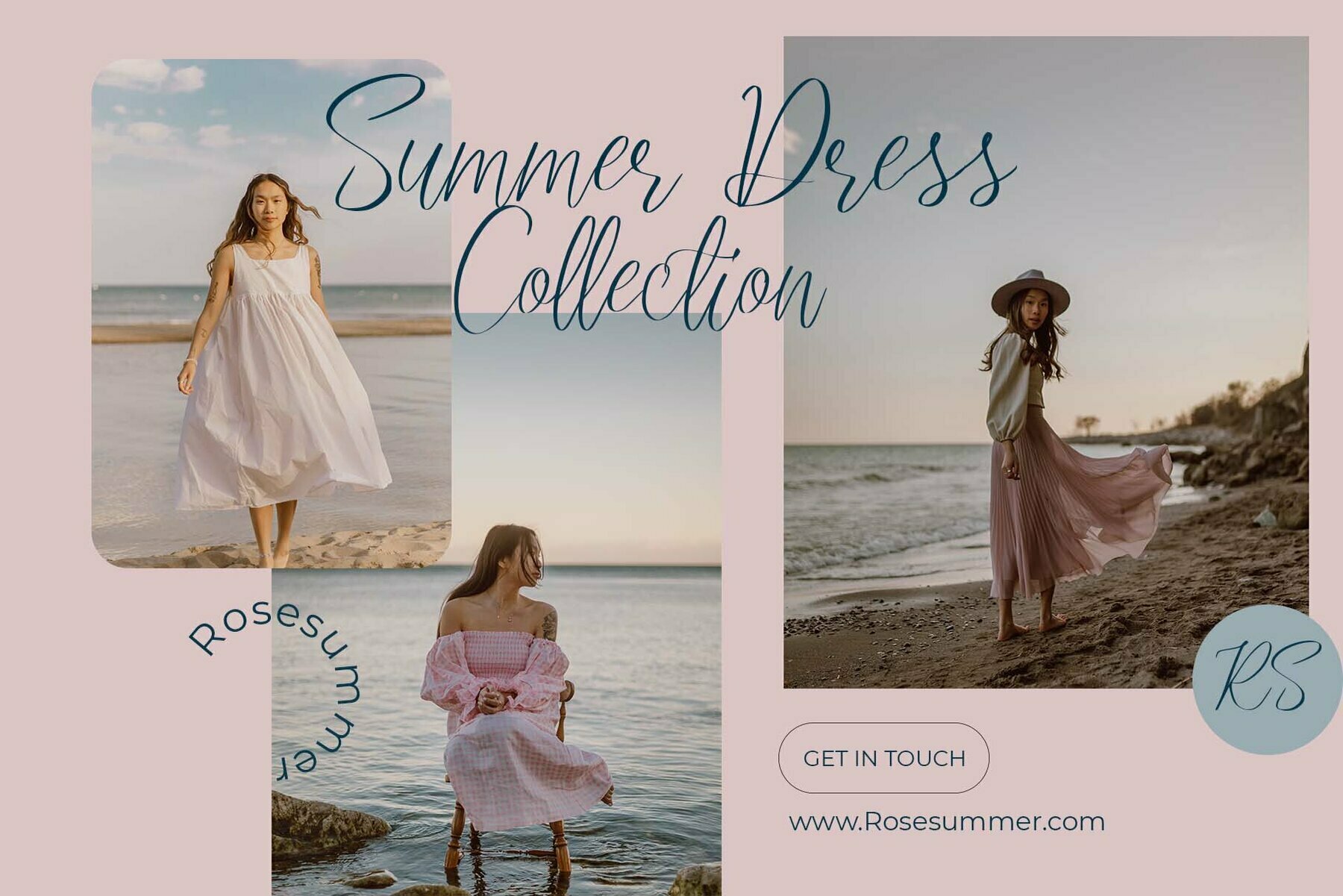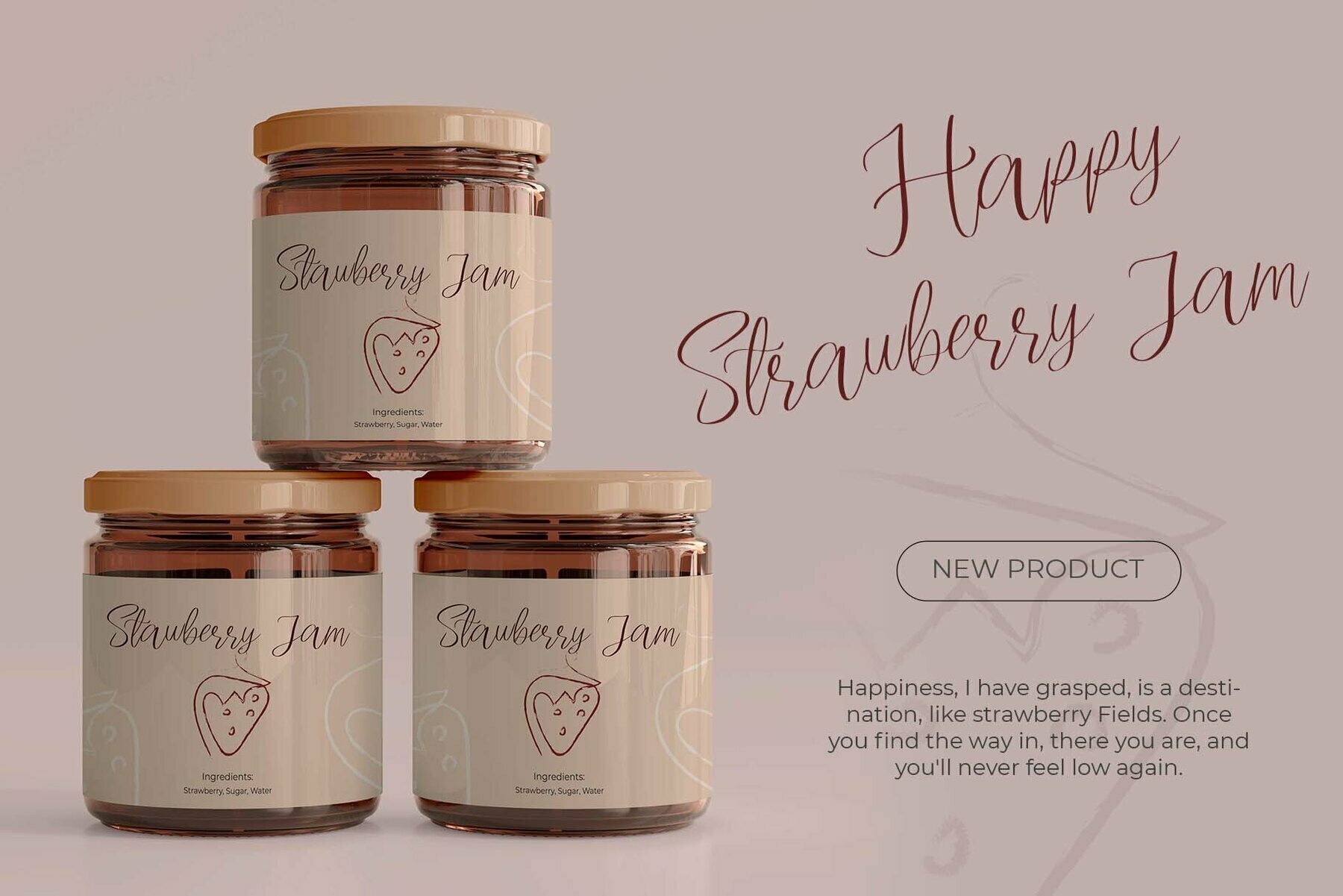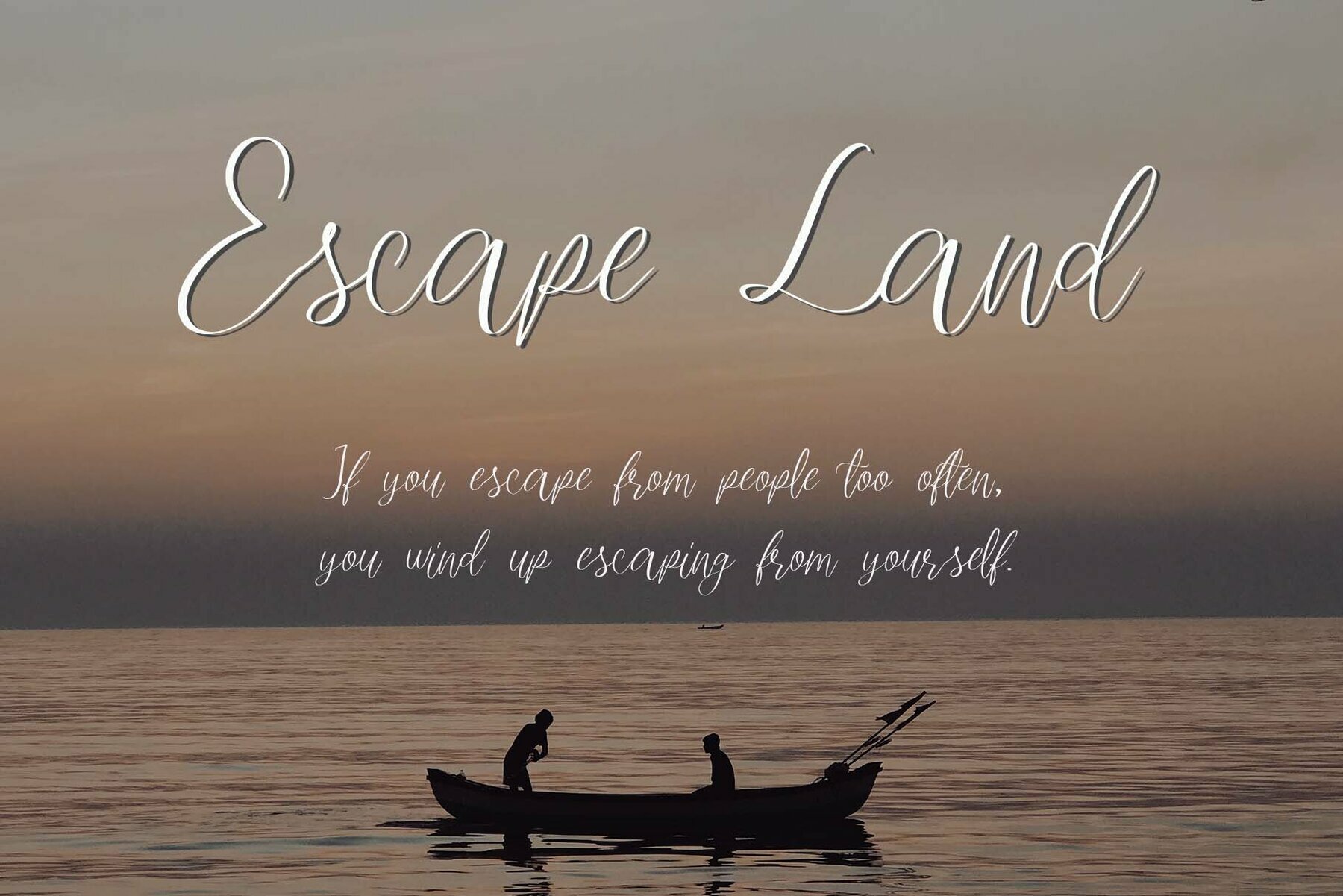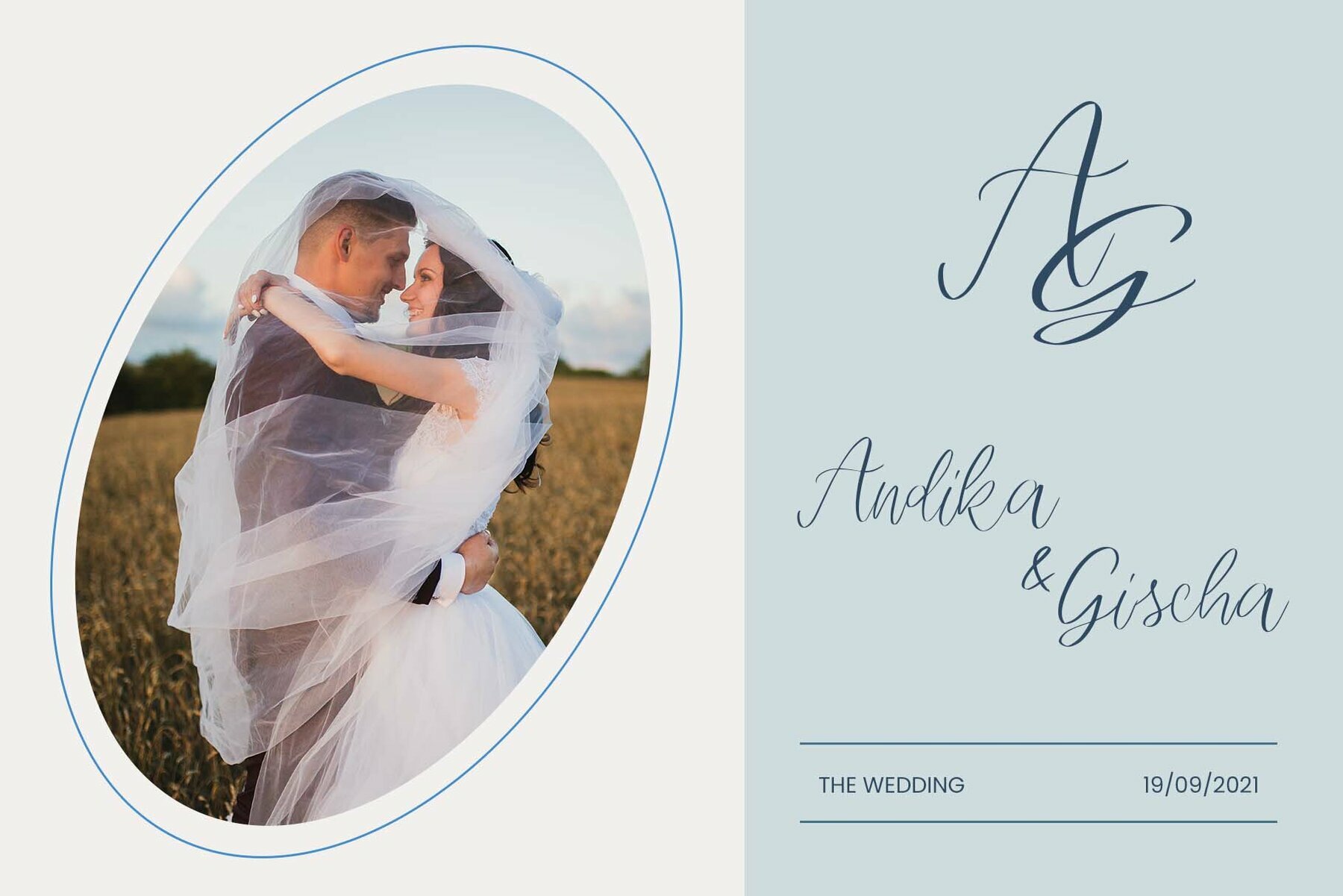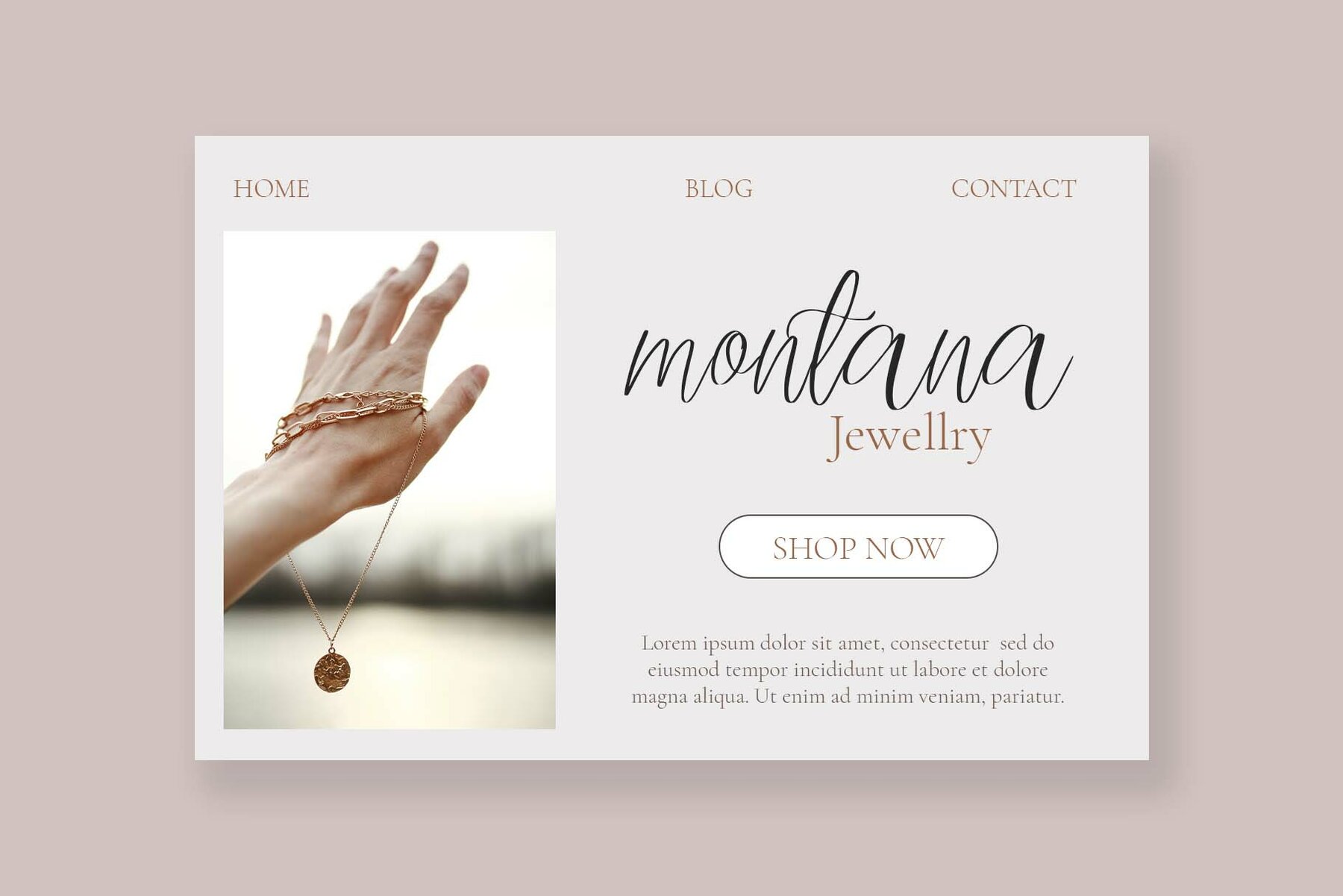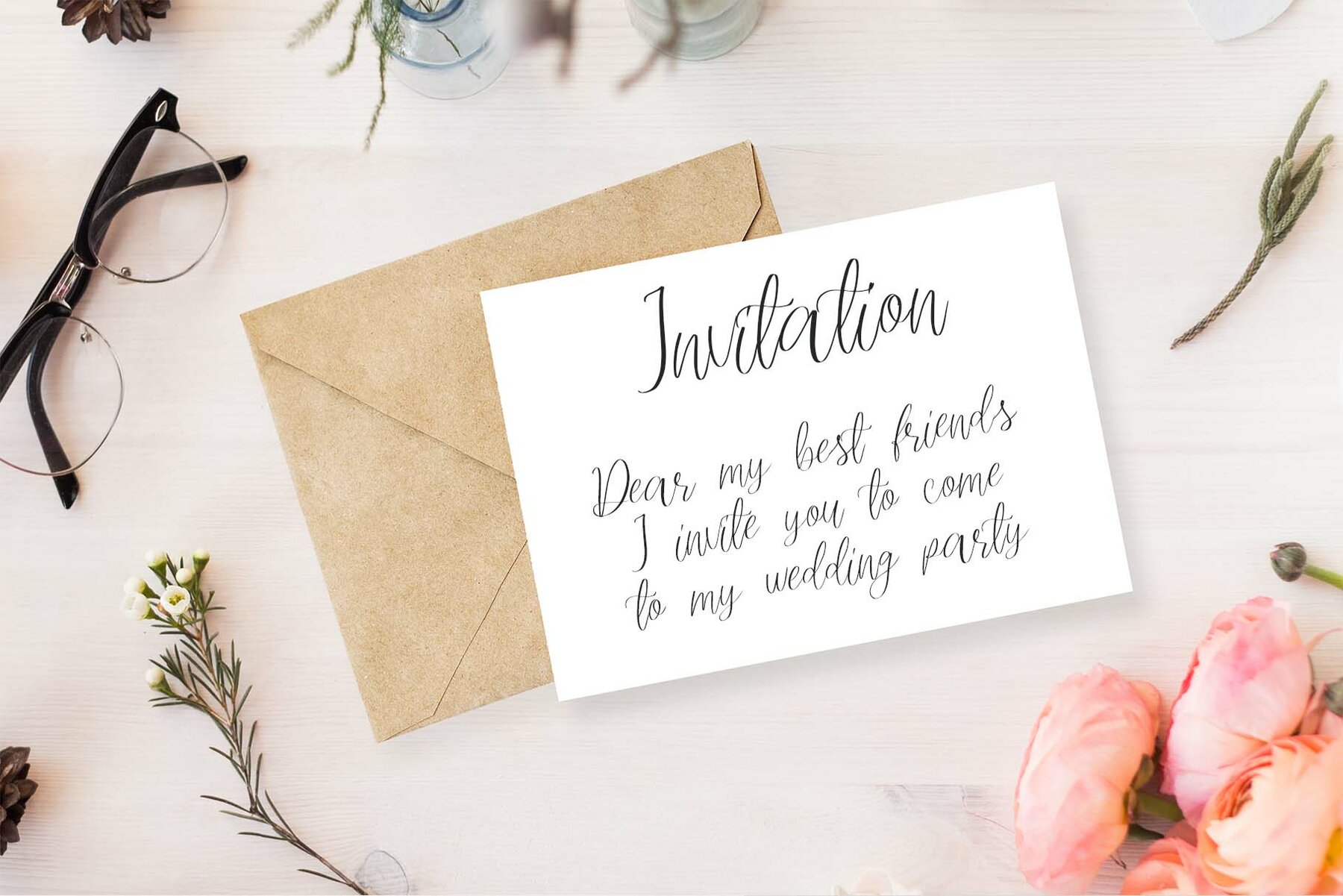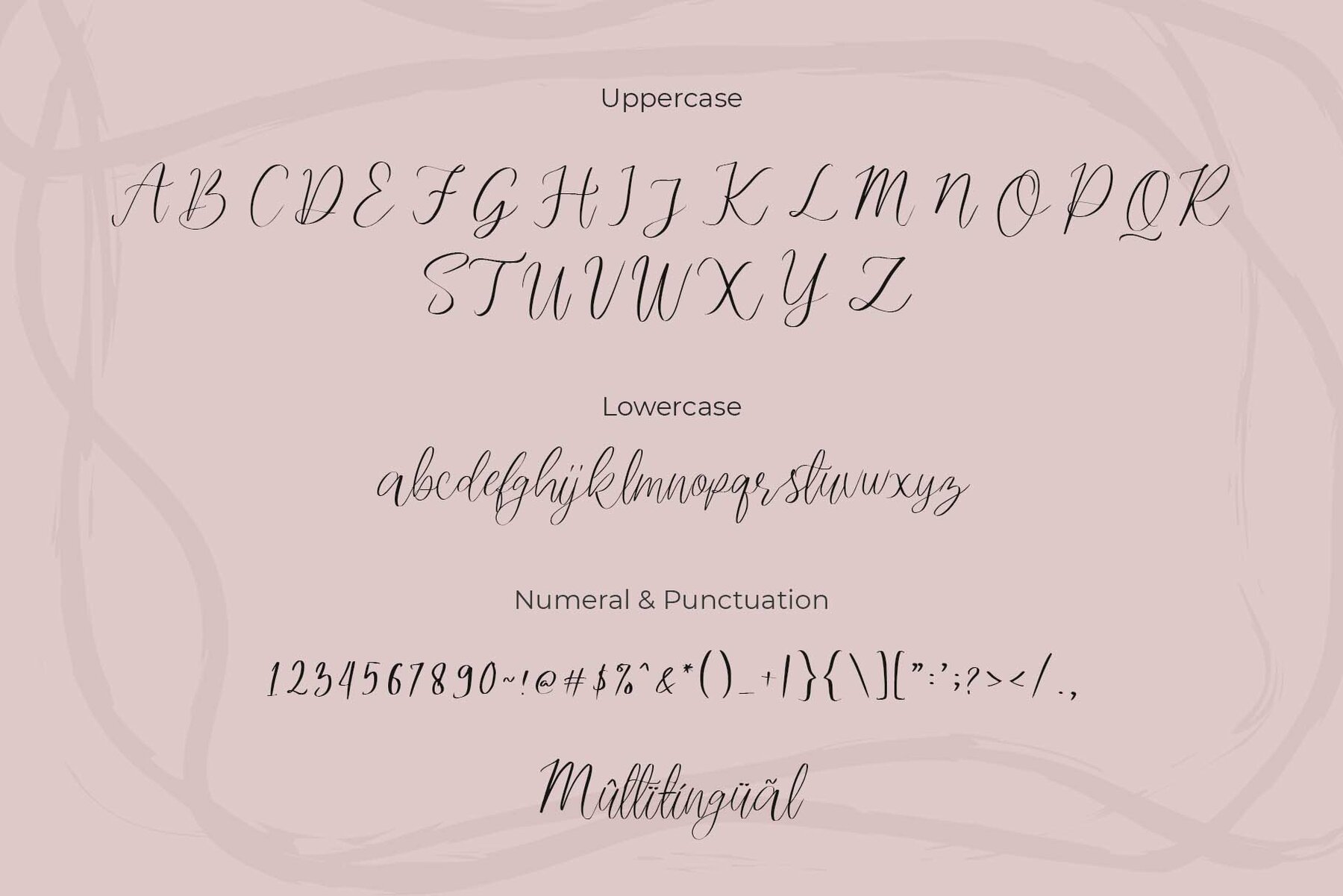
Runday Font
Runday captivates with its modern elegance, offering a graceful handwritten script ideal for e-commerce brands, fashion ventures, and more. This font thrives in contexts that demand a chic and contemporary touch, including trend blogs and wedding boutiques. Whether you're crafting logos, designing greeting cards, or setting the stage with posters, Runday provides a seamless blend of style and utility. Perfect for a myriad of creative endeavors, Runday enhances everything from fashion branding to personalized stationery. Its application spans a variety of uses, including crafting name cards, design titles, blog headers, and even book covers. The font's aesthetic aligns beautifully with hand-drawn or watercolor design themes, making it an ideal choice for any DIY project or artistic pursuit seeking a refined yet trendy edge.Runday: The Sophisticated Handwritten Script